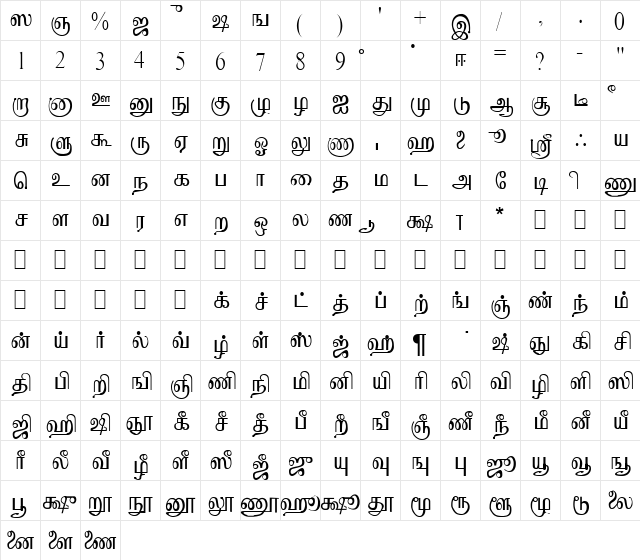
MCL Ilavai Regular
Design Context for MCL Ilavai Typeface
MCL Ilavai is a composed and adaptable typeface that performs quietly and consistently across a wide range of design contexts.
Pro Tip: Use MCL Ilavai in both headline and body roles to test its range before committing to a single application.